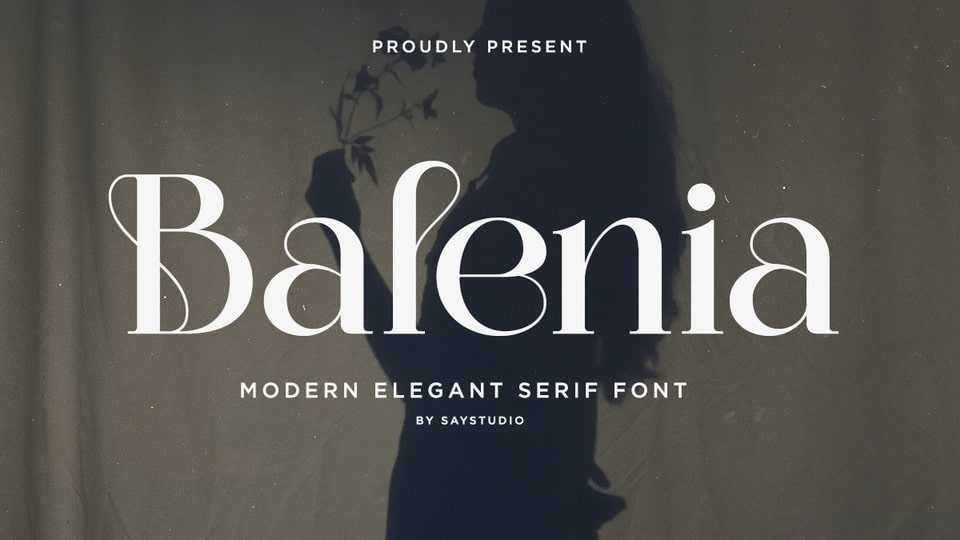
Download Balenia font, a refined and sophisticated serif typeface that blends timeless elegance with contemporary design aesthetics. Perfectly suited for high-end branding, editorial design, luxury fashion
Designer: Saystudio